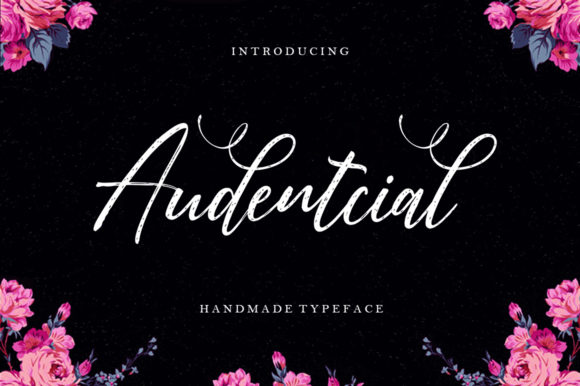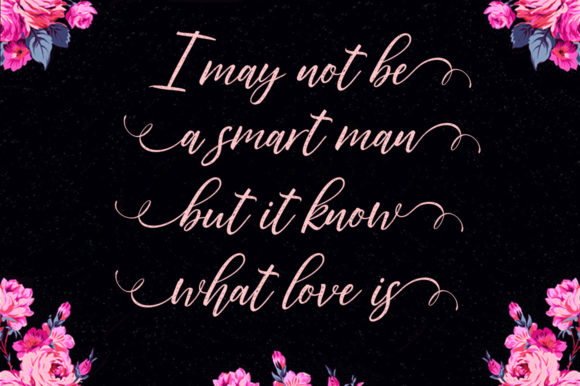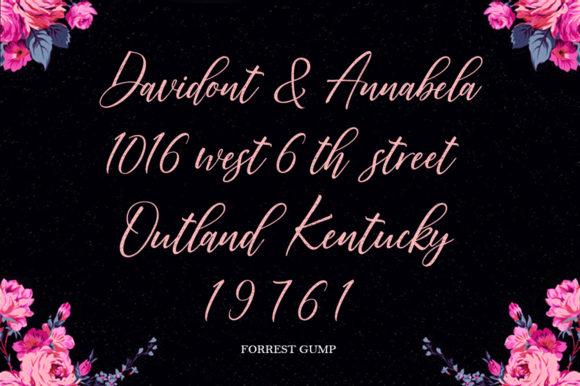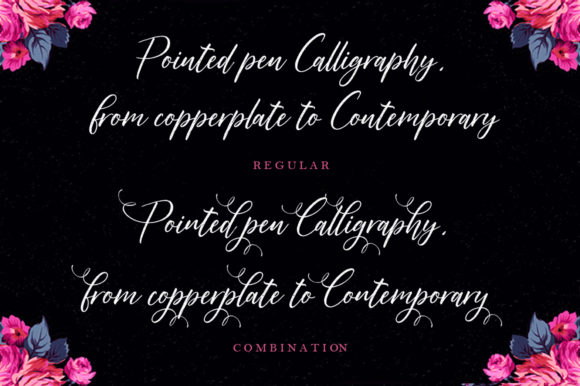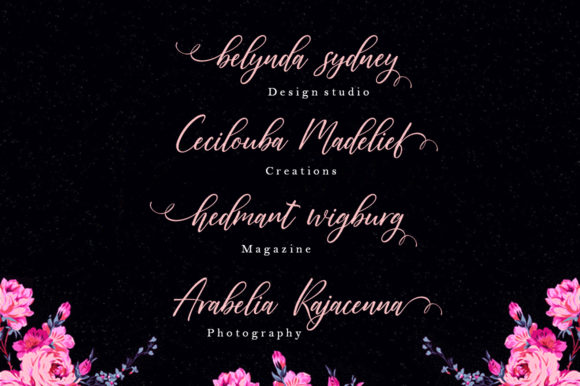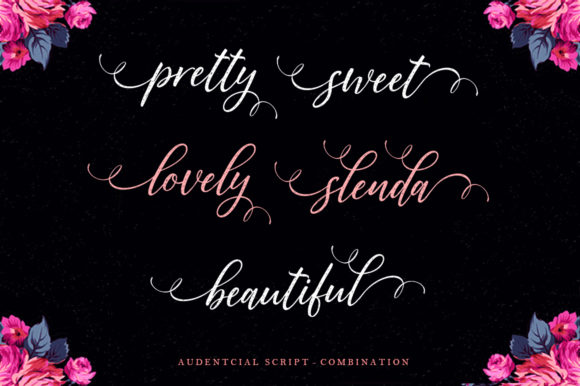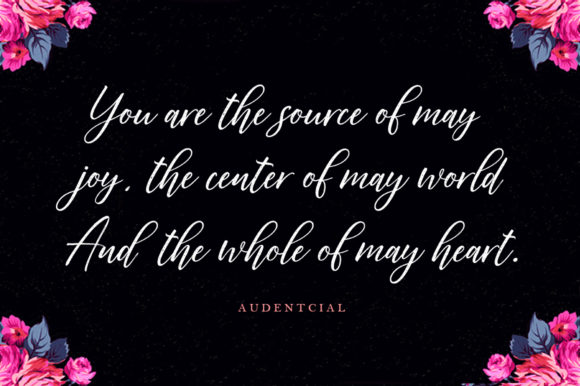
Audentcial Font
About Audentcial Font
The Audentcial is an elegant handwritten font. It has a trendy and feminine style with an irregular baseline.
It’s the perfect font to add personal charm to your designs!